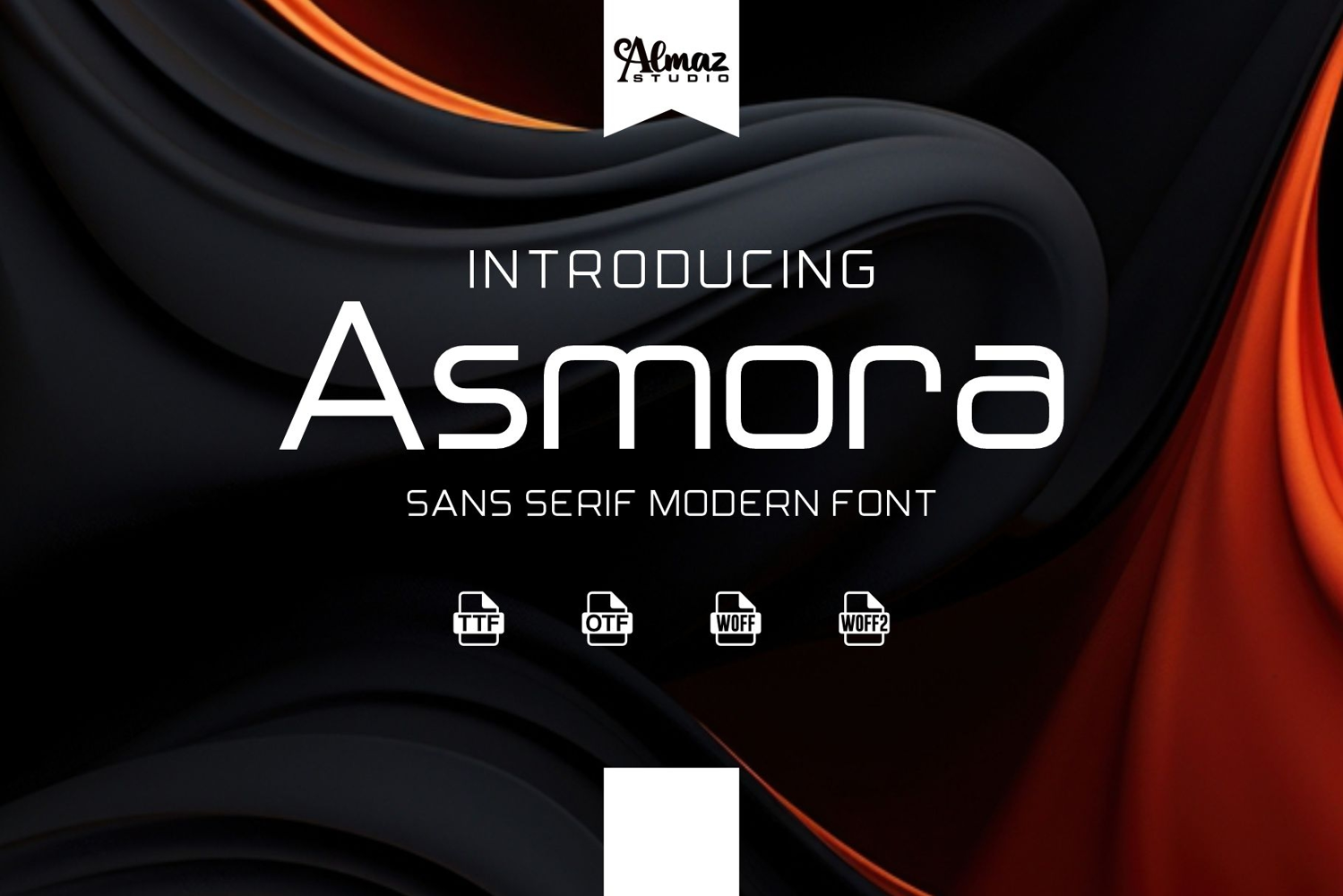
Asmora
Asmora is a modern sans serif font with a sleek, elegant, and contemporary style. It features smooth curves, clean strokes, and refined letterforms that create a sense of sophistication and modern minimalism. The balanced structure of each character ensures excellent readability while maintaining a stylish and futuristic appearance.
Asmora is well suited for branding, technology projects, corporate identity, websites, mobile applications, posters, editorials, and premium design layouts. Its clean and professional look makes it ideal for both digital and print use, especially for designs that aim to convey innovation and elegance.